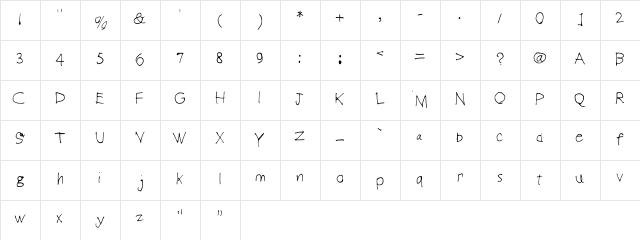
Preteen Warped Medium Font Preview
Preteen Warped Medium
Preteen Warped Medium Font Details
Design Context for Preteen Warped Typeface
Preteen Warped is a composed and adaptable typeface that performs quietly and consistently across a wide range of design contexts.